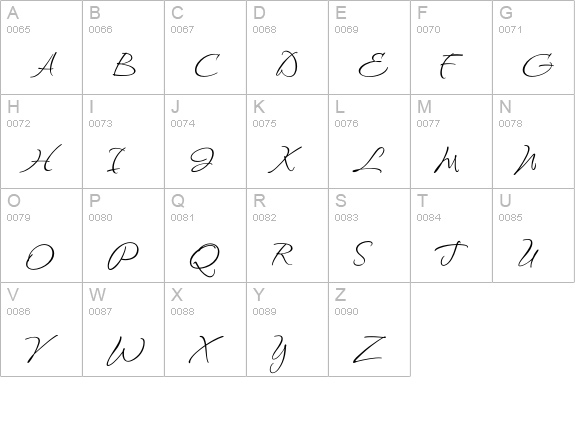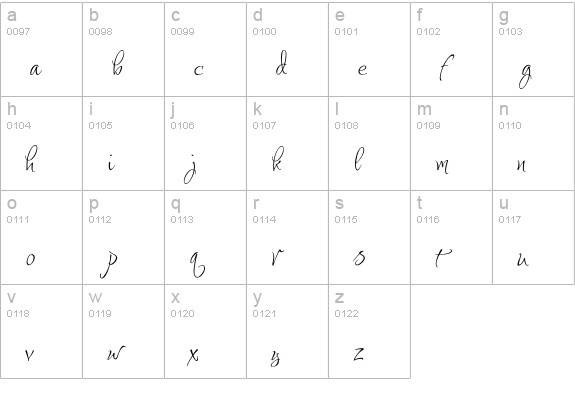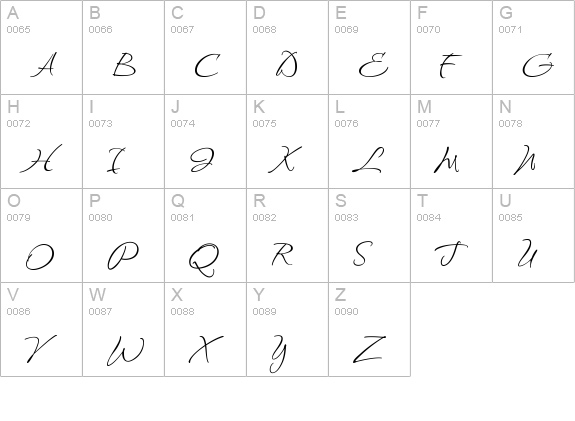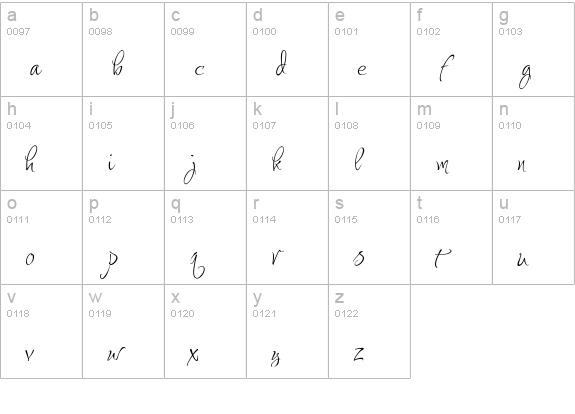
FugglesOne Font Details
FugglesOne font is a stylish and modern typeface that exudes sophistication and elegance. With its clean lines and sleek design, this font is perfect for all kinds of projects, from branding to editorial design. The FugglesOne font is versatile and can be used for both headings and body text, making it a great choice for any design needs. What sets FugglesOne apart is that it is not only visually appealing but also completely free to download. Yes, you read that right - this high-quality font is freely available to download at FontsMarket.com. So whether you're a seasoned designer looking to add a new font to your collection or a beginner searching for the perfect typeface for your project, FugglesOne is the ideal choice. Download it now and elevate your designs with this exceptional font.